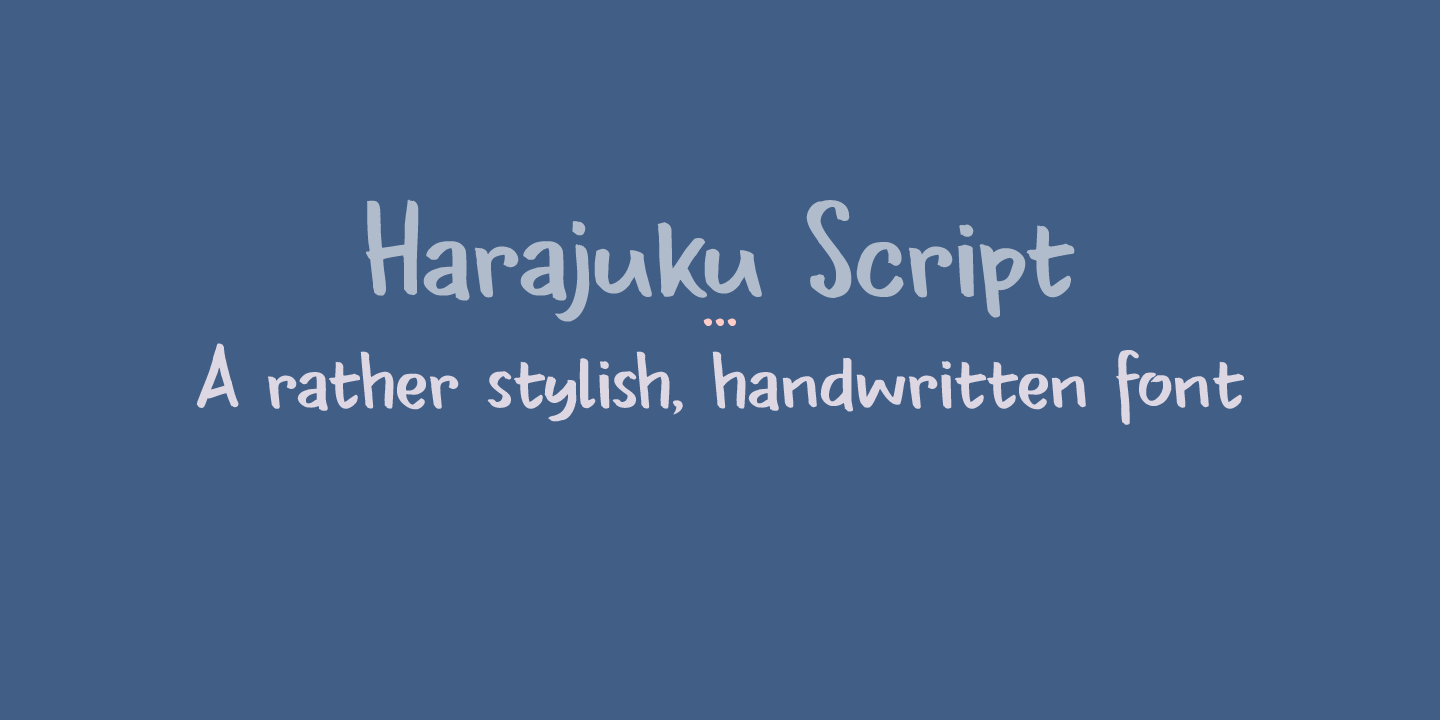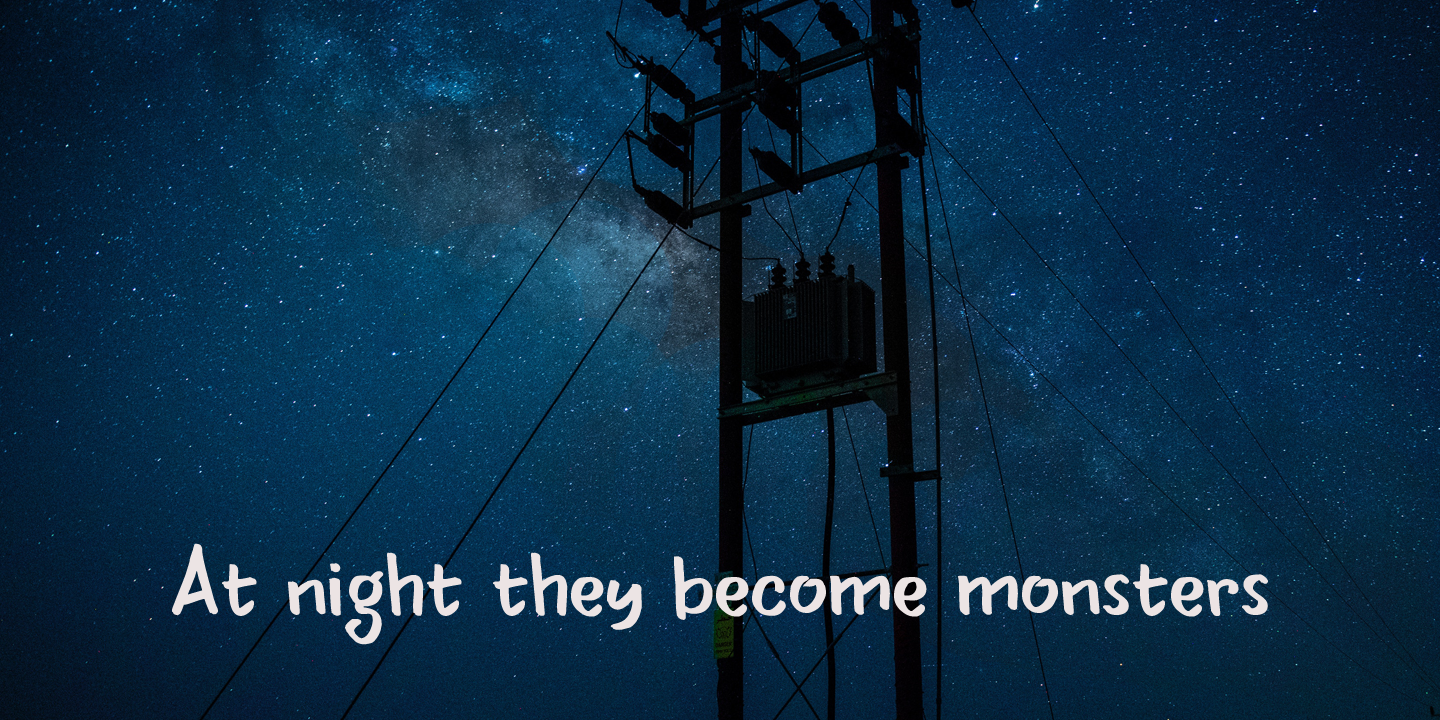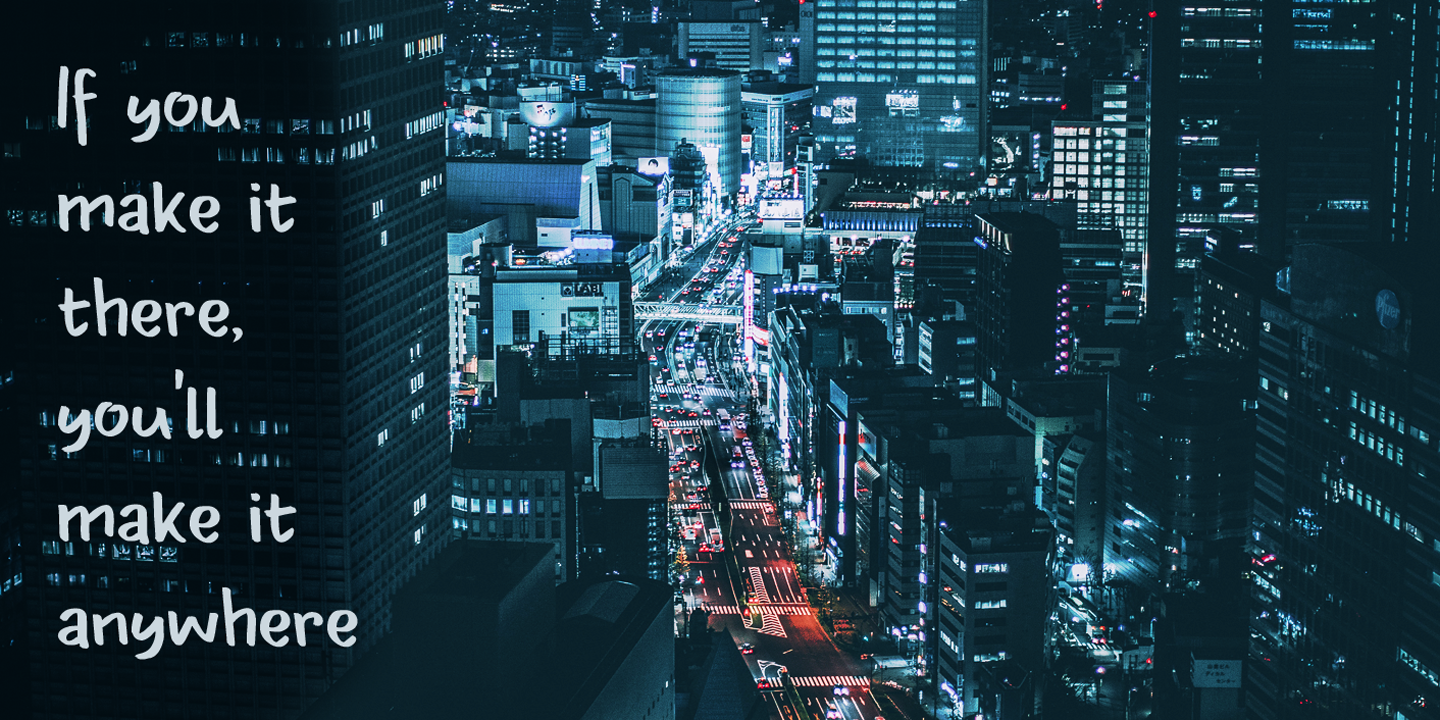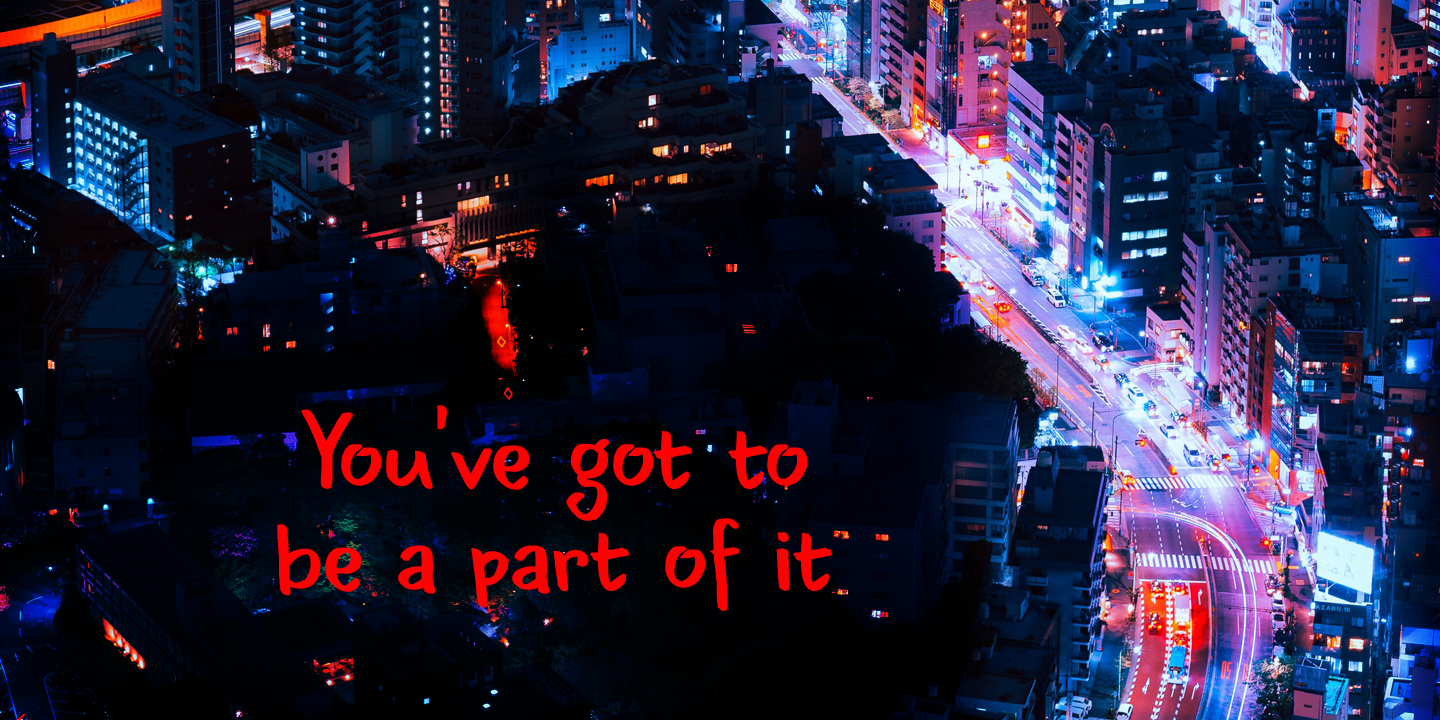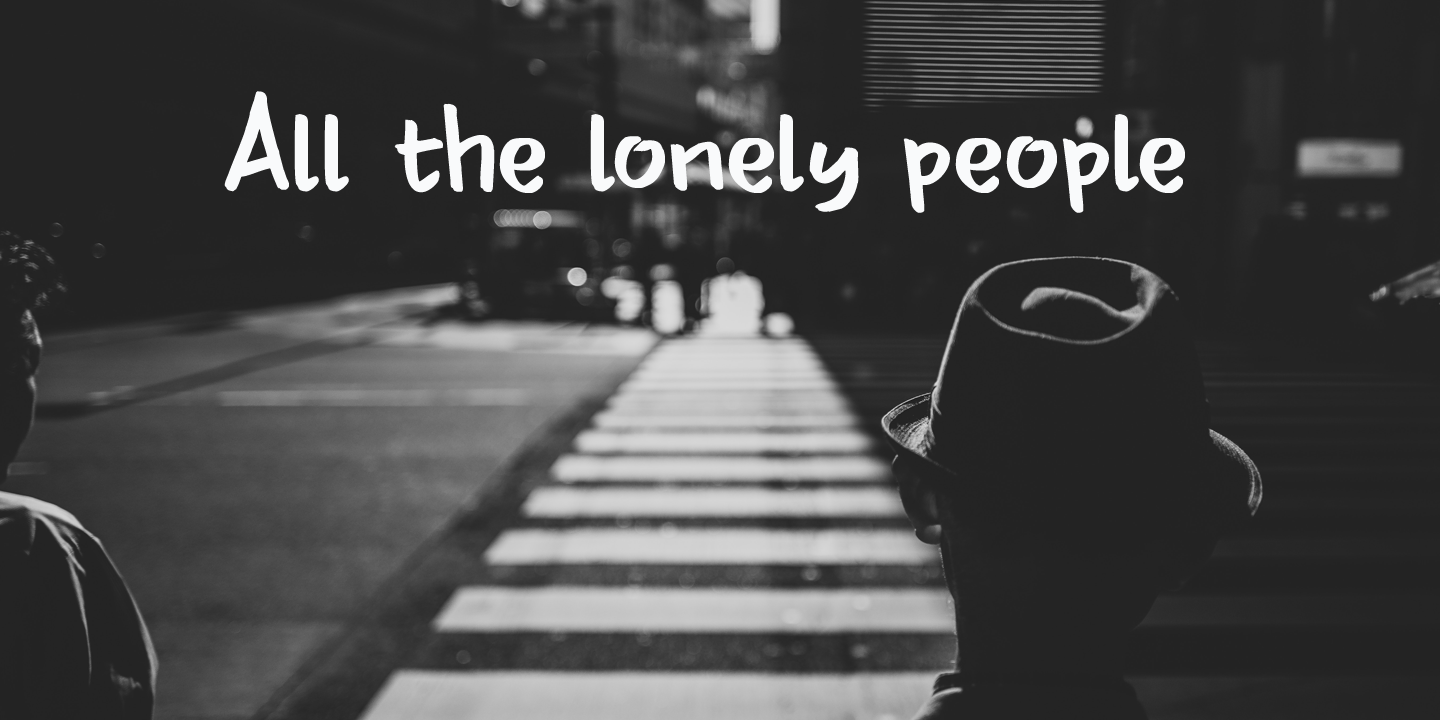
Harajuku Script Family (2 fonts)
Harajuku Script would look good anywhere, but product packaging, websites and magazines could profit from this handwritten gem.